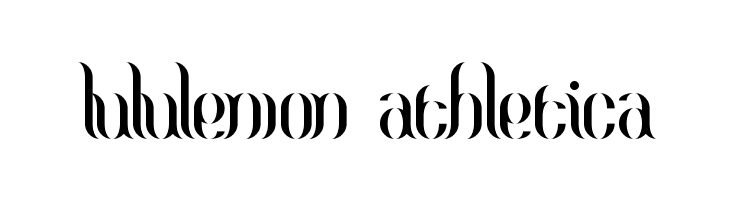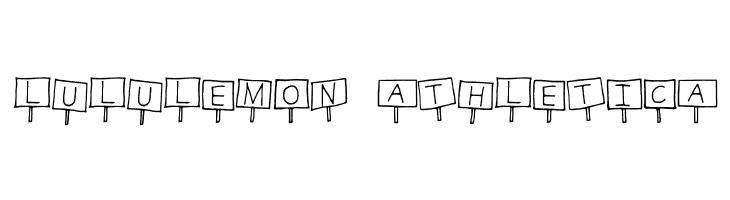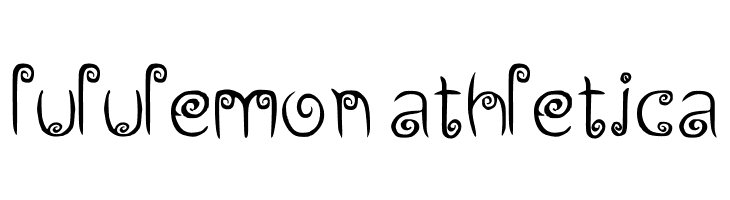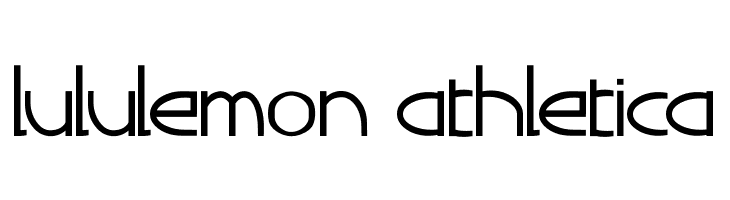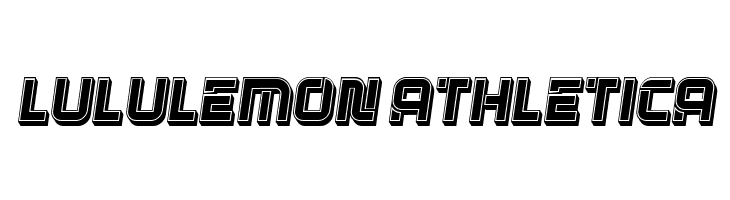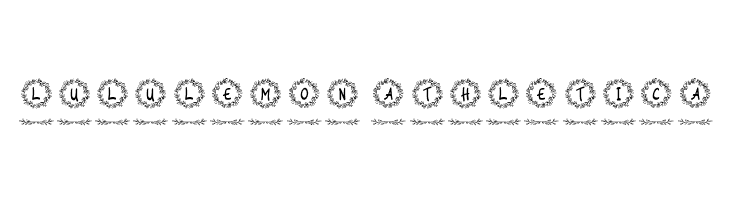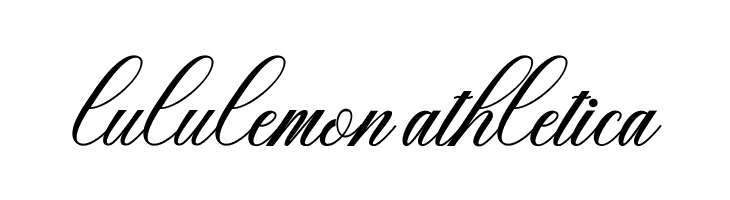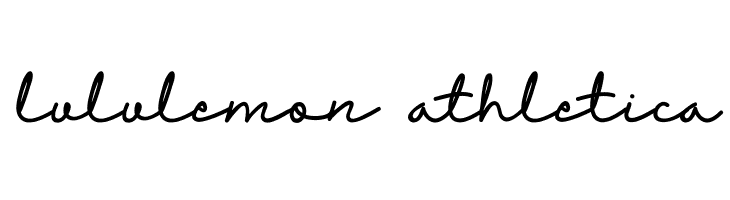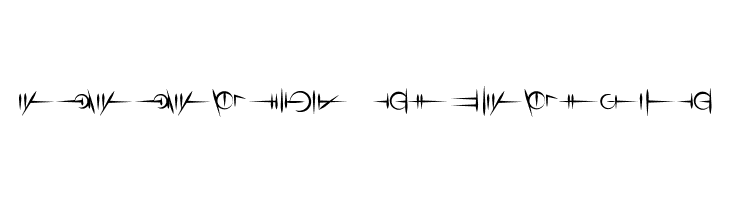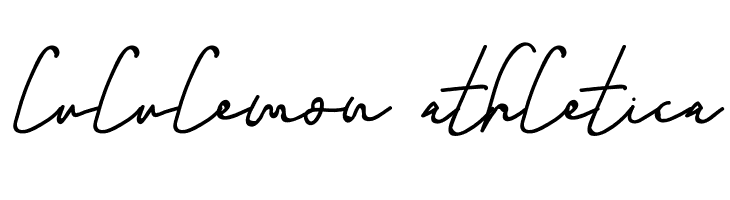
( Fonts by Pen Culture - Revo Farisky - Personal-use only. For commercial use please contact owner. ) An elegant, swash-filled font with intricate, flowing designs. Descarcă 23 Descărcări@WebFont
( Fonts by Vladimir Nikolic - www.creativefabrica.com/designer/vladimirnikolic/ - Personal-use only. For commercial use please contact owner. ) A bold, geometric font with a three-dimensional outline effect. Descarcă 60 Descărcări@WebFont
( Fonts by a Neale Davidson - www.pixelsagas.com. Personal-use only. For commercial use please contact owner. ) A bold, geometric font with art deco influences, featuring sharp, angular letterforms. Descarcă 3328 Descărcări@WebFont
( Fonts by a Neale Davidson - www.pixelsagas.com. Personal-use only. For commercial use please contact owner. ) A bold, geometric font with art deco influences, ideal for striking designs. Descarcă 829 Descărcări@WebFont
( Fonts by a Neale Davidson - www.pixelsagas.com. Personal-use only. For commercial use please contact owner. ) A bold, italicized font with a dynamic and energetic style. Descarcă 93 Descărcări@WebFont
( Fonts by a Neale Davidson - www.pixelsagas.com. Personal-use only. For commercial use please contact owner. ) A bold, italic font with a modern, dynamic style and clean lines. Descarcă 183 Descărcări@WebFont
( Fonts by Vladimir Nikolic - www.creativefabrica.com/designer/vladimirnikolic/ - Personal-use only. For commercial use please contact owner. ) A bold, geometric font with a futuristic, three-dimensional look. Descarcă 182 Descărcări@WebFont
( Fonts by Saridezra - Personal-use only. For commercial use please contact owner. ) A playful, informal handwritten font with smooth, flowing curves. Descarcă 26 Descărcări@WebFont
( Rachma BT - bit.ly/bonjourtype ) A dynamic and elegant script font with fluid, decorative letterforms. Descarcă 862 Descărcări@WebFont
( Fonts by Attype Studio - Fadli Ramadhan Iskandar - Personal-use only. For commercial use please contact owner. ) An elegant monogram font with letters encased in ornate floral wreaths. Descarcă 25 Descărcări@WebFont
( Fonts by Mozyen Studio - Personal-use only. For commercial use please contact owner. ) A modern, geometric font with clean lines and rounded edges. Descarcă 93 Descărcări@WebFont
( Fonts by Dylan Culhane - Personal-use only. For commercial use please contact owner. ) A futuristic and edgy font with sharp, angular lines and geometric shapes. Descarcă 32 Descărcări@WebFont
( Fonts by Nenjo Studio - Personal-use only. For commercial use please contact owner. ) A bold, condensed font with uniform stroke thickness and strong vertical emphasis. Descarcă 395 Descărcări@WebFont
( Fonts by Inermedia Studio - Personal-use only. For commercial use please contact owner. ) A fluid, cursive font with a natural handwritten style. Descarcă 36 Descărcări@WebFont
( Fonts by DawnCreative.id - Fajar Rachmadi - Personal-use only. For commercial use please contact owner. ) A playful, casual script font with smooth, flowing lines and a handwritten feel. Descarcă 42 Descărcări@WebFont
( Fonts by Danti - Personal-use only. For commercial use please contact owner. ) A sophisticated script font with elegant curves and intricate details. Descarcă 39 Descărcări@WebFont
( Fonts by The Typerex - Personal-use only. For commercial use please contact owner. ) A cursive, elegant script font with a flowing, handwritten style. Descarcă 50 Descărcări@WebFont
( Fonts by Michell Lorenza ) A whimsical and decorative font with spiral and curl elements. Descarcă 126 Descărcări@WebFont
Font de glyphstyle. For commercial use please contact the owner. ( NOTE: This demo font is for PERSONAL USE ONLY! But any donation are very appreciated. Paypal account for donation : https://www.paypal.me/dimasardhi full version: https://www.glyphstyle.net/sighnora/ contact us at styleglyph@gmail.com And follow my i ) A modern, elegant script font with a smooth, flowing style. Descarcă 279 Descărcări@WebFont
Font de danny91194. For commercial use please contact the owner. ( tricky ) A bold, futuristic font with geometric shapes and a digital aesthetic. Descarcă 126 Descărcări@WebFont
( Pixel Kitchen ) A bold, high-contrast font with elongated, angular characters and decorative flourishes. Descarcă 74 Descărcări@WebFont
( Fonts by Manfred Klein - manfred-klein.ina-mar.com ) A classic serif font with elegant flourishes and modern touches. Descarcă 299 Descărcări@WebFont
( Fonts by a Neale Davidson - www.pixelsagas.com. Personal-use only. For commercial use please contact owner. ) A bold, geometric font with a futuristic and modern style. Descarcă 174 Descărcări@WebFont
( Fonts by a Neale Davidson - www.pixelsagas.com. Personal-use only. For commercial use please contact owner. ) A bold, geometric font with a futuristic and angular design. Descarcă 729 Descărcări@WebFont
( Fonts by a Neale Davidson - www.pixelsagas.com. Personal-use only. For commercial use please contact owner. ) A bold, geometric font with a modern and impactful design. Descarcă 649 Descărcări@WebFont
( Fonts by a Neale Davidson - www.pixelsagas.com. Personal-use only. For commercial use please contact owner. ) A bold, italicized font with a futuristic and dynamic style. Descarcă 418 Descărcări@WebFont